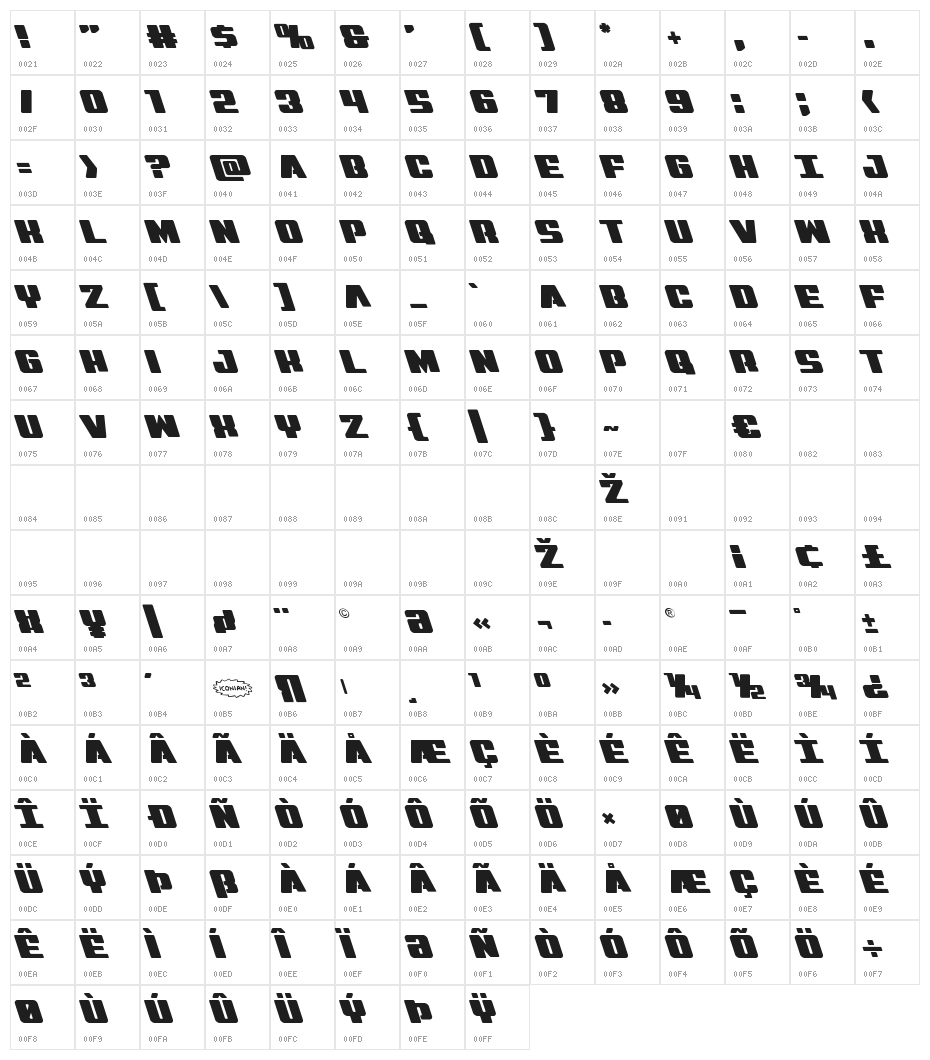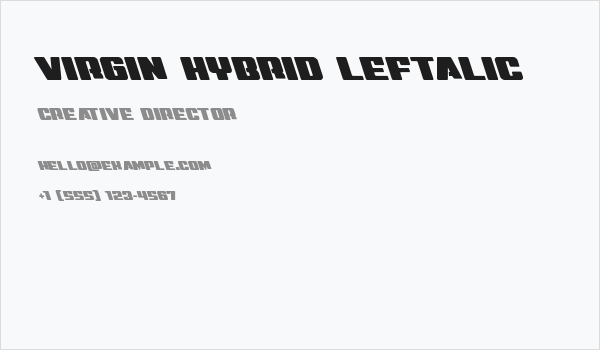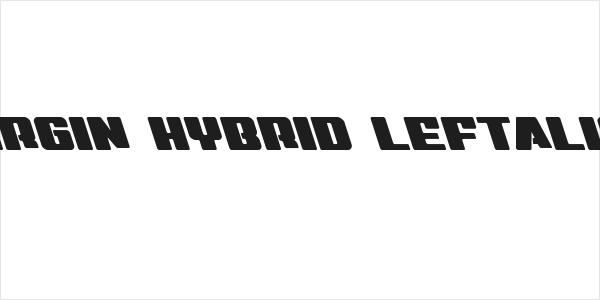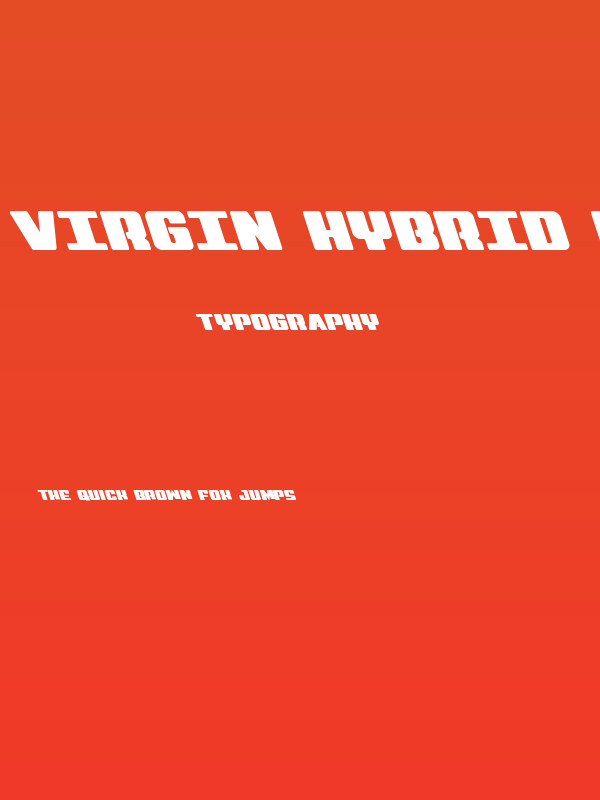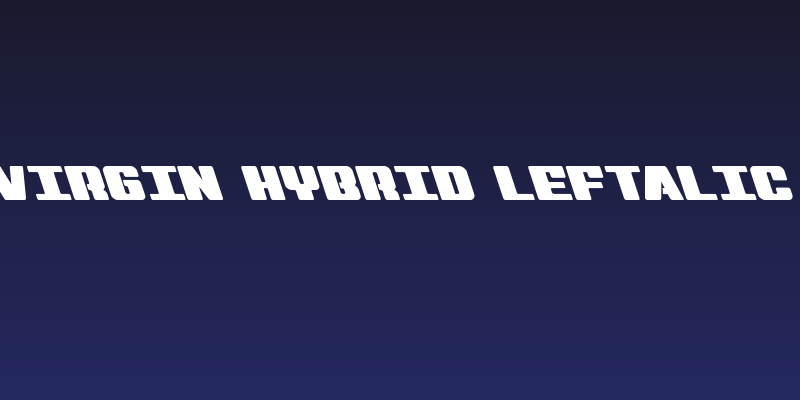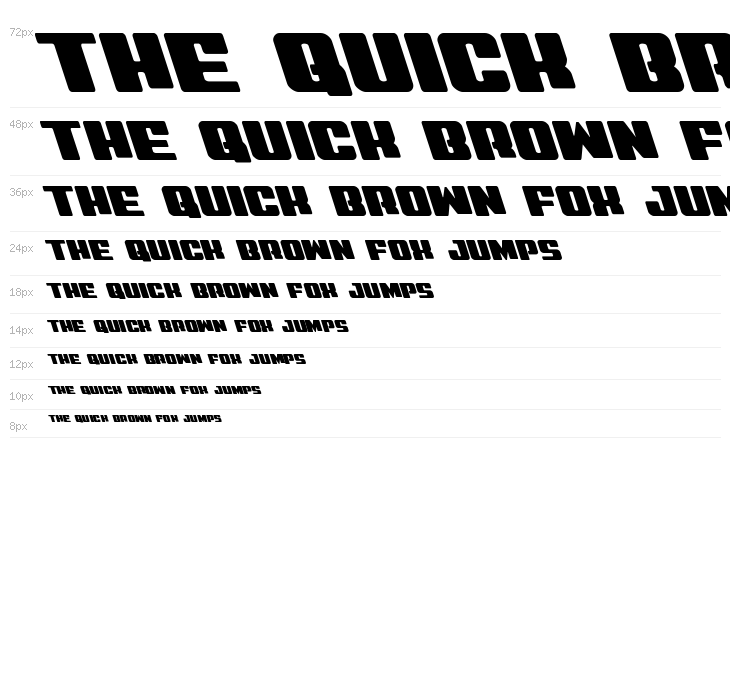
Virgin Hybrid Leftalic Font
Virgin Hybrid Leftalic Description
This font features a bold and dynamic style with a strong presence. The characters are heavily weighted, providing a robust and impactful appearance. The angular cuts and geometric shapes give it a modern and edgy feel. The uppercase and lowercase letters maintain a consistent style, while the numbers and special characters complement the overall design. The font's boldness and unique slant make it stand out, suitable for projects that require a strong visual impact.
| Proposed Projects | Ideal for branding, posters, headlines, and any design requiring a strong, impactful font. |